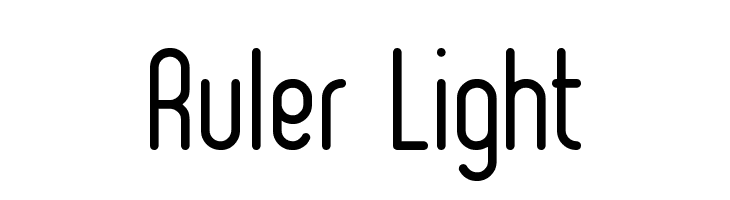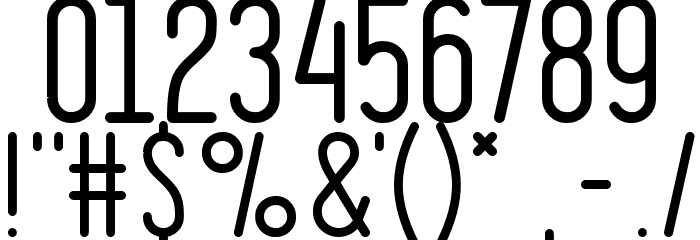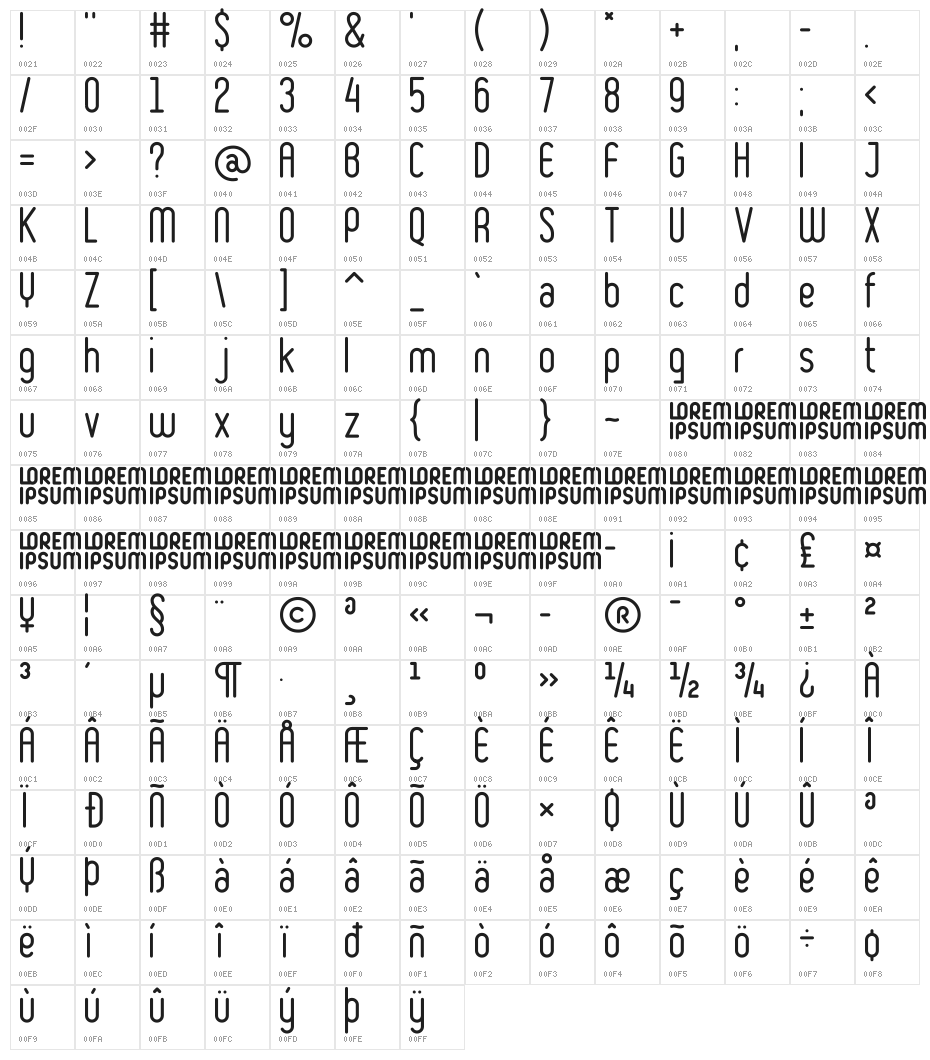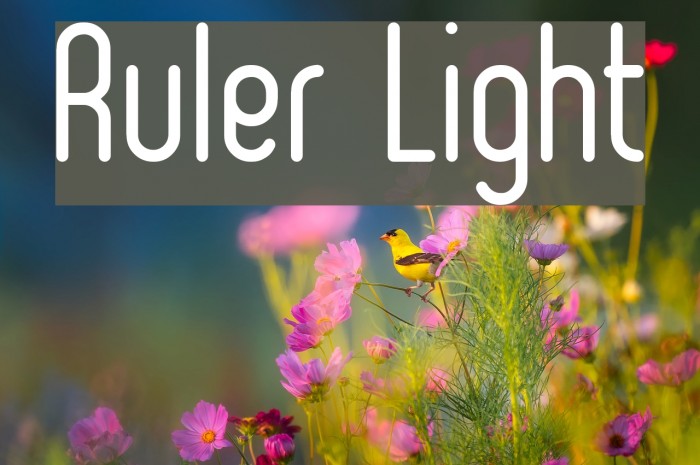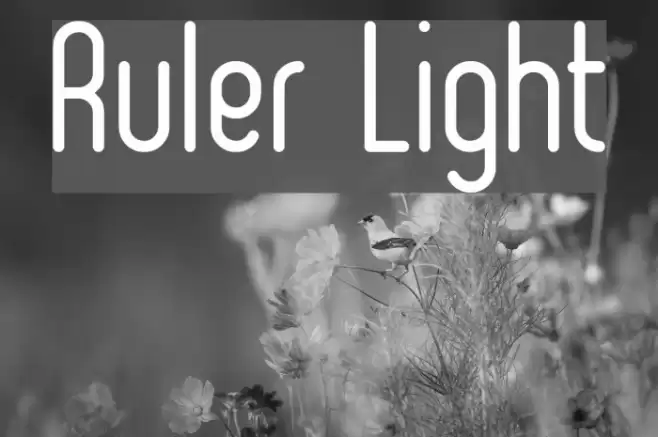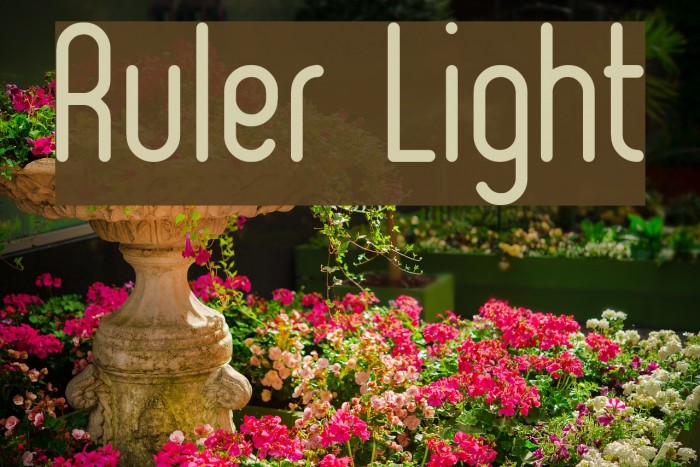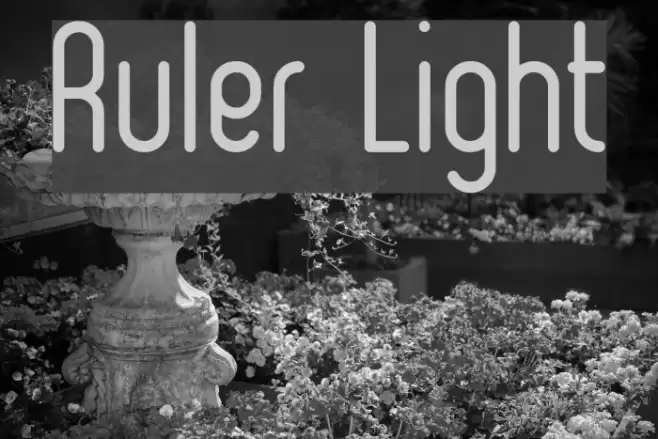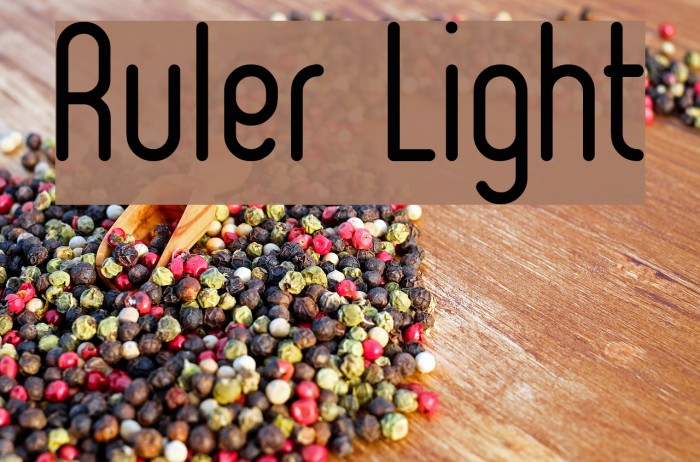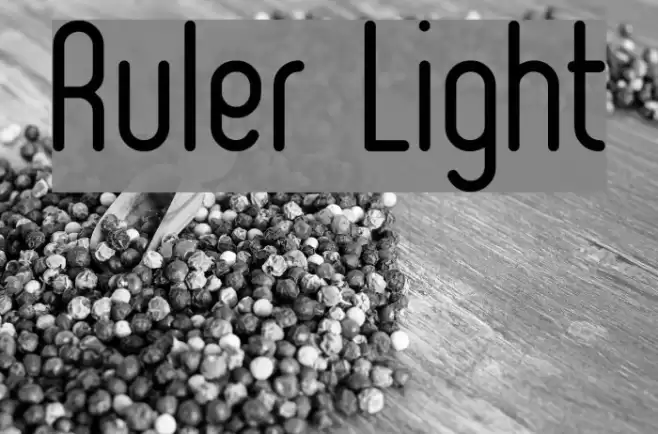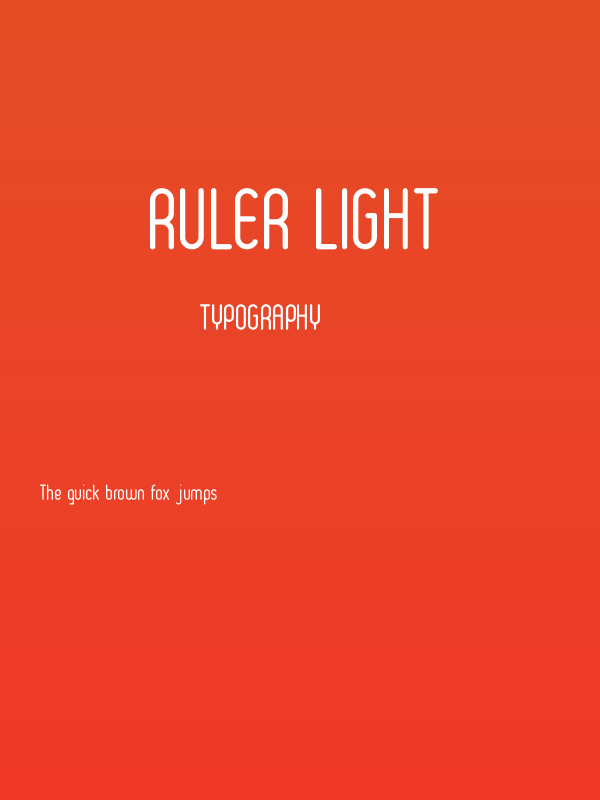
Ruler Light Font
Ruler Light Description
This font features a clean and modern design with rounded edges and a uniform stroke width, giving it a sleek and contemporary appearance. The characters are tall and narrow, contributing to a condensed look that is both stylish and functional. The uppercase and lowercase letters maintain a consistent height, creating a harmonious visual flow. Numbers and special characters are designed with the same attention to detail, ensuring readability and versatility. This font is suitable for a variety of design applications, offering a professional yet approachable aesthetic.
| Proposed Projects | Ideal for branding, digital interfaces, signage, and editorial design. |